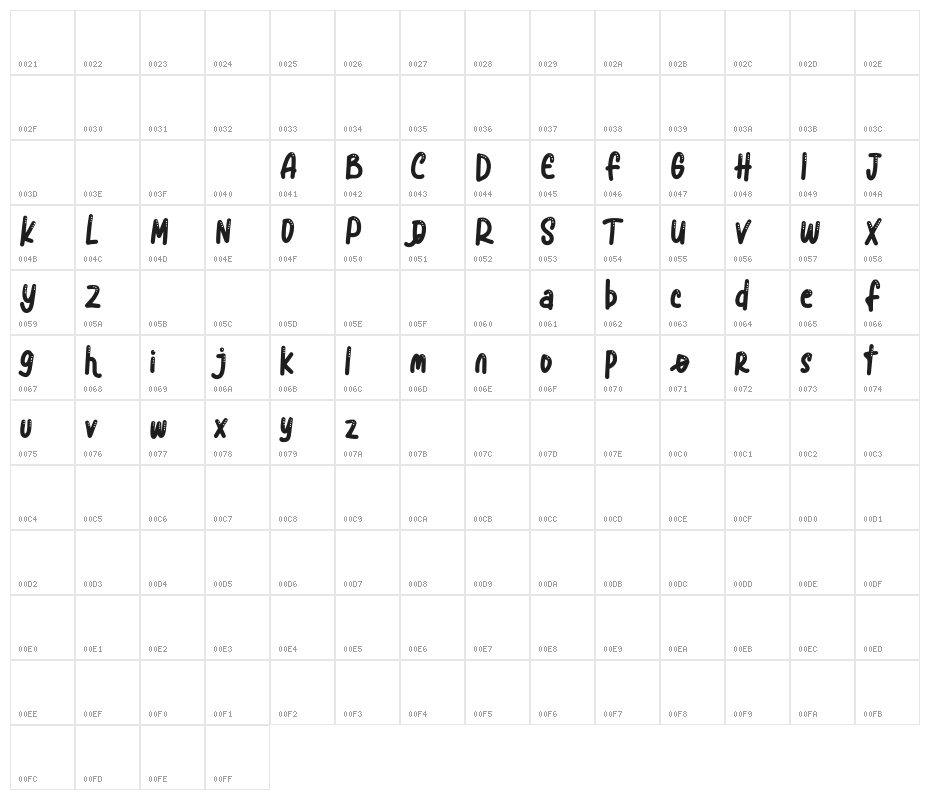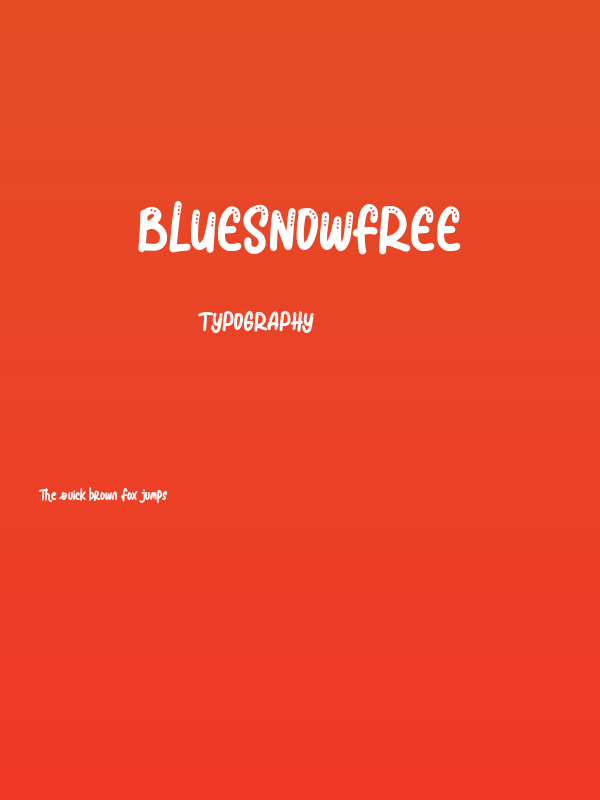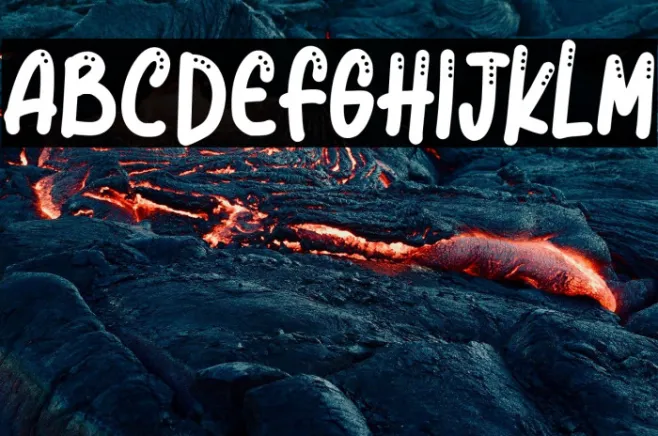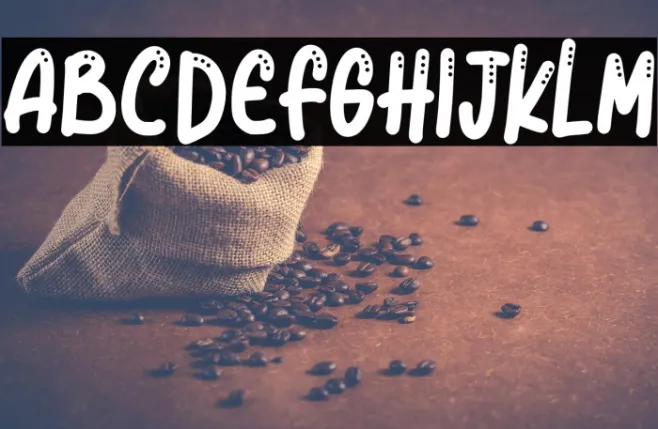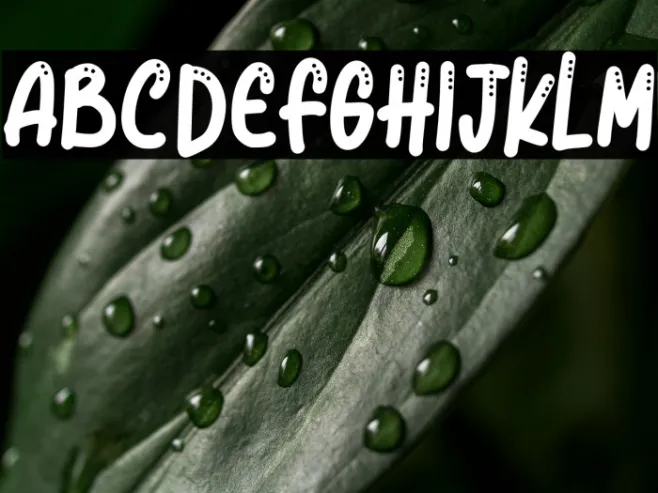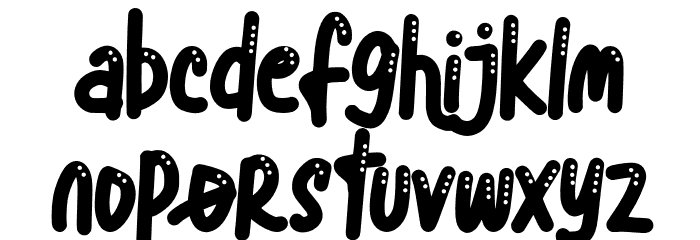
BlueSnowFREE Font
BlueSnowFREE Description
This playful and whimsical font features bold, rounded characters with a unique dotted pattern on the uppercase letters. The lowercase letters maintain a consistent style, offering a friendly and approachable look. The font's design is reminiscent of hand-drawn lettering, adding a personal touch to any project. Its bold strokes and decorative elements make it stand out, ideal for creative and fun applications. The font's style is both modern and quirky, making it suitable for a variety of uses where a lighthearted and engaging appearance is desired.